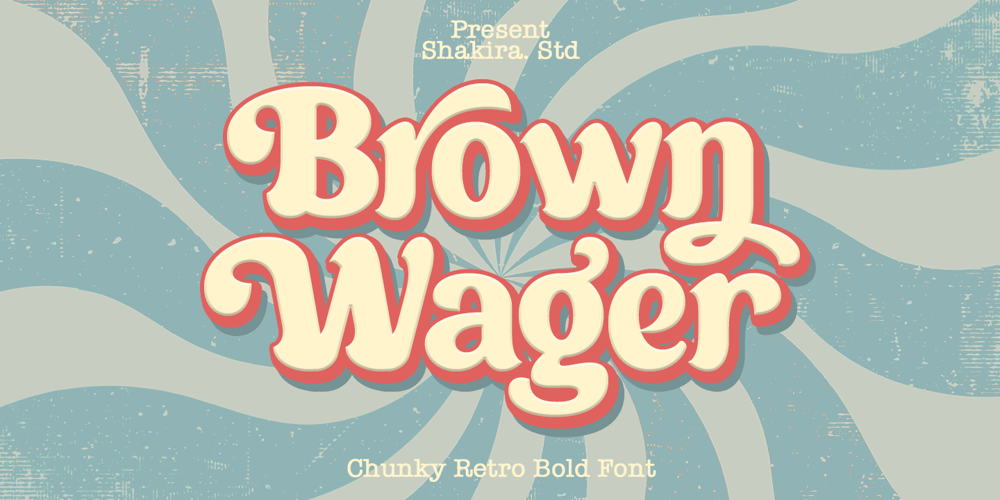
Brown Wager Font Family was designed by Idhham Cholid Rikzano Yahya and published by Shakira Studio. Brown Wager contains 1 styles and family package options. Introducing Brown Wager – The Chunky Bold Retro Serif Font with Unique Character!Brown Wager is not just a font; it’s a robust tribute to vintage design with a modern twist. Perfectly capturing the essence of #RetroFonts and #TypographyTrends, Brown Wager is designed to make a bold statement.With its chunky, bold serif characters and stylish alternates, Brown Wager adds a distinctive and nostalgic flair to any project. Whether you’re working on standout logos, eye-catching posters, or dynamic branding materials, Brown Wager ensures your designs are memorable and impactful.Join the trend towards bold and retro typography with Brown Wager. Elevate your creative projects with its unique charm and powerful presence! #BrownWagerFont #BoldSerif #RetroTypography #DesignInnovationHere’s what you get: Regular All Multilingual symbol Opentype features ( ligature, alternate ) Accessible in the Adobe Illustrator, Adobe Photoshop, Adobe InDesign, even work on Microsoft Word. PUA Encoded Characters – Fully accessible without additional design software. Multilingual character supports : (Afrikaans, Albanian, Catalan, Croatian, Czech, Danish, Dutch, English, Estonian, Finnish, French, German, Hungarian, Icelandic, Italian, Lithuanian, Maltese, Norwegian, Polish, Portuguese, Slovenian, Spanish, Swedish, Turkish, Zulu)Follow my shop for upcoming updates, and for more of my work, If you need a custom license or have questions please visit our website: www.shakirastudio.comThank you!Shakira Studio